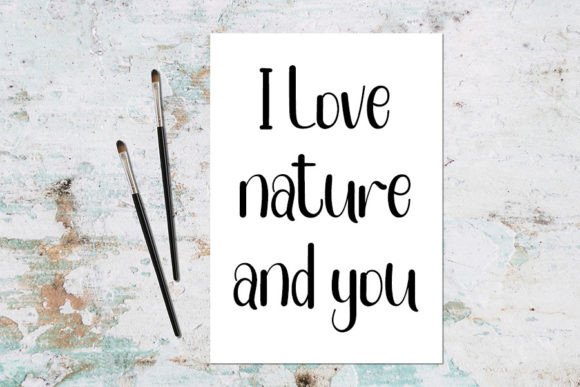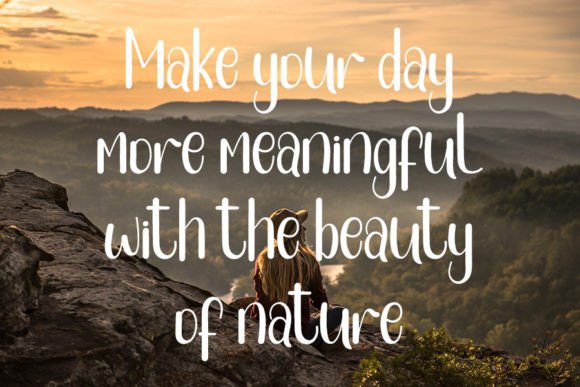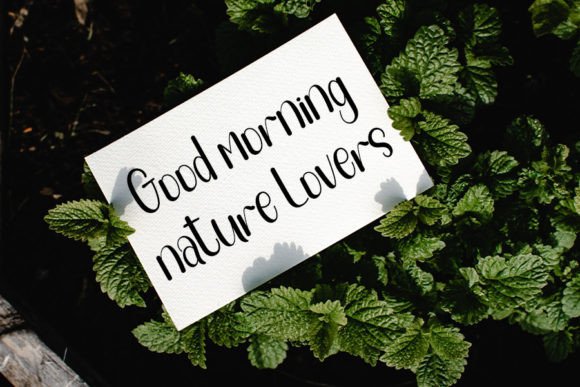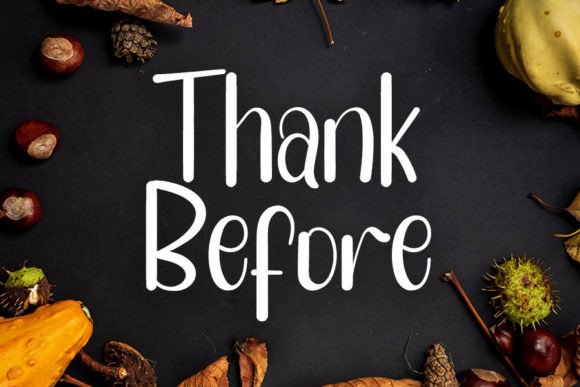
About Hiking Font
**”Hiking” Handwritten Font: Nature’s Elegance in Your Designs**
“Hiking” is a beautifully crafted handwritten font that captures the essence of the great outdoors with its natural and elegant touch. Whether you’re designing for outdoor adventures, rustic themes, or projects that need a hint of nature’s beauty, “Hiking” is the perfect font to add a unique and timeless style. Here are some creative ways to use the “Hiking” font effectively:
1. **Adventure Logos:** Create logos for outdoor and adventure-related businesses, such as hiking clubs, camping gear stores, or eco-tourism companies. “Hiking” font’s natural elegance embodies the spirit of adventure.
2. **Outdoor Event Posters:** Design posters for outdoor events like hiking trips, nature walks, or wilderness retreats. The font’s distinct style adds authenticity to your promotional materials.
3. **Trail Maps:** Craft informative and visually appealing trail maps for national parks, hiking trails, and nature reserves. “Hiking” font provides a rustic touch to map titles and labels.
4. **Campsite Signage:** Develop rustic and charming signage for campsites and outdoor facilities. The font’s handwritten look complements the natural surroundings.
5. **Outdoor Photography Watermarks:** Add a personal and rustic touch to your outdoor photography by using “Hiking” font as a watermark on your images.
6. **Nature Blogs:** Use “Hiking” font for blog headers, titles, and quotes in nature and adventure blogs. It conveys a sense of outdoor authenticity.
7. **Handmade Outdoor Gear Labels:** If you create handmade outdoor gear or crafts, use this font for labels and tags to highlight the handcrafted and nature-inspired aspect of your products.
8. **Nature-Themed Packaging:** Design packaging for eco-friendly or nature-inspired products like organic skincare, handmade candles, or natural foods, enhancing the brand’s connection to nature.
9. **Outdoor Event Tickets:** Customize event tickets for outdoor concerts, festivals, and nature-themed events with “Hiking” font, setting the tone for a rustic and natural experience.
10. **Hiking Club Merchandise:** Create merchandise for hiking clubs or outdoor enthusiasts, including t-shirts, hats, and accessories featuring the “Hiking” font.
11. **Adventure Travel Brochures:** Design brochures for adventure travel agencies, showcasing hiking and outdoor experiences with the font’s rustic charm.
12. **Nature-Themed Social Media Graphics:** Use “Hiking” font in social media posts, particularly for content related to hiking, camping, and outdoor adventures.
13. **Nature Book Covers:** Apply this font to book covers for nature-themed novels, guidebooks, or poetry collections, enhancing their connection to the outdoors.
14. **Outdoor Wedding Invitations:** Craft wedding invitations for rustic outdoor weddings, using the font to set a natural and romantic tone.
15. **Environmental Awareness Campaigns:** Use “Hiking” font in campaigns advocating for environmental conservation and outdoor appreciation.
16. **Botanical Illustrations:** Enhance botanical illustrations and nature-themed artwork with “Hiking” font for plant names and descriptions.
17. **Outdoor-Themed Scrapbooking:** Incorporate the font into scrapbooking projects related to outdoor adventures, camping trips, and nature exploration.
18. **Wilderness-Themed Art Prints:** Create art prints with wilderness quotes or scenic illustrations, featuring “Hiking” font for a rustic, handcrafted look.
The “Hiking” font’s unique blend of elegance and rustic charm makes it a versatile choice for projects that celebrate the beauty of nature and outdoor experiences. Whether you’re designing for outdoor brands, adventure enthusiasts, or simply want to infuse your projects with the tranquility of nature, “Hiking” font is the perfect choice. Embrace the natural beauty of “Hiking” font and let it take your designs on a journey through the great outdoors.